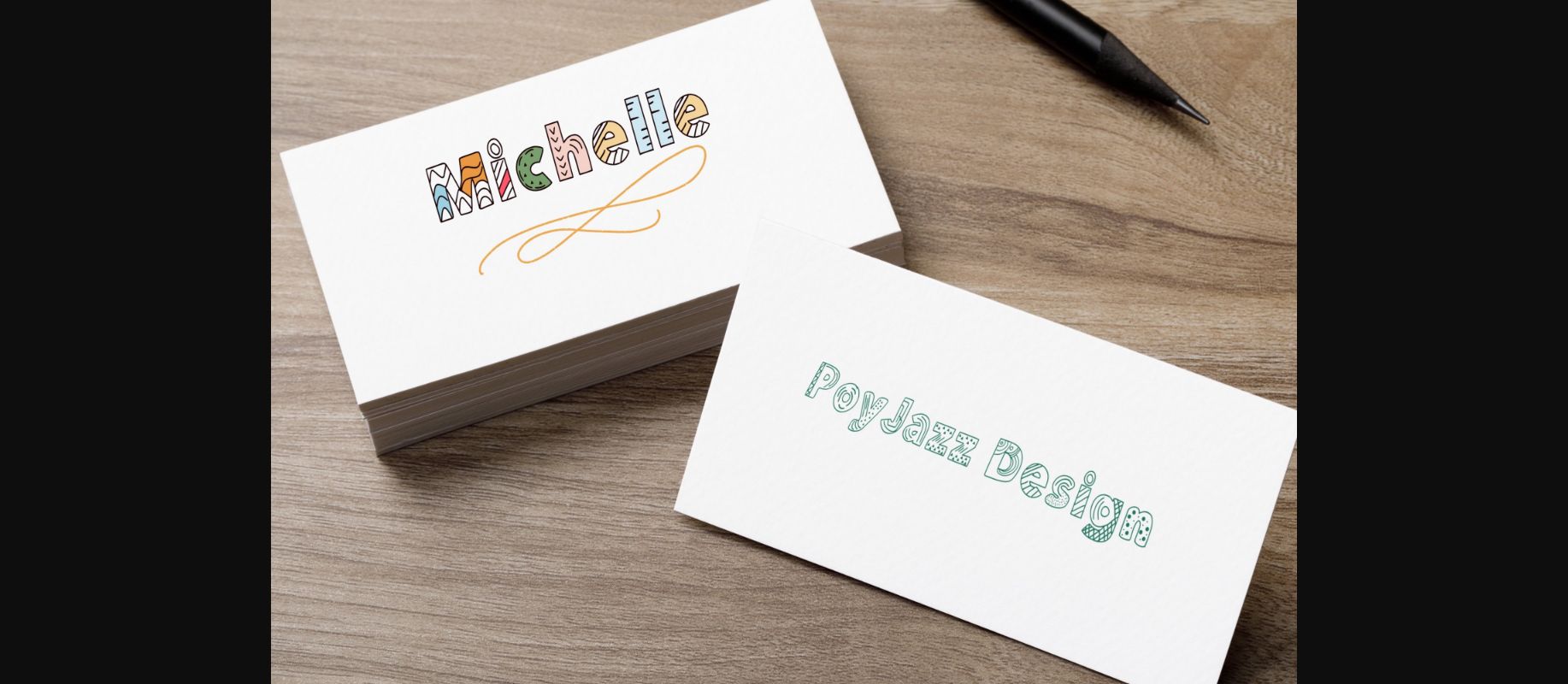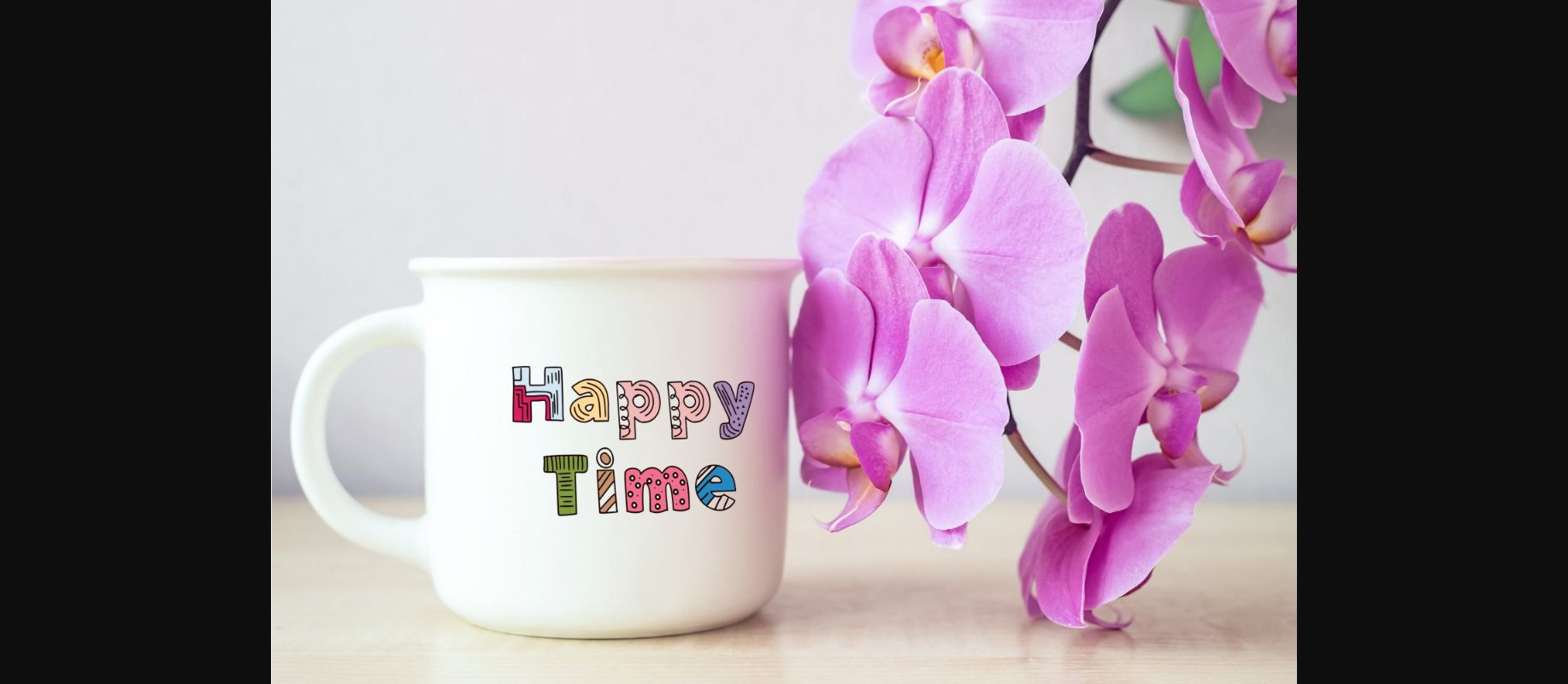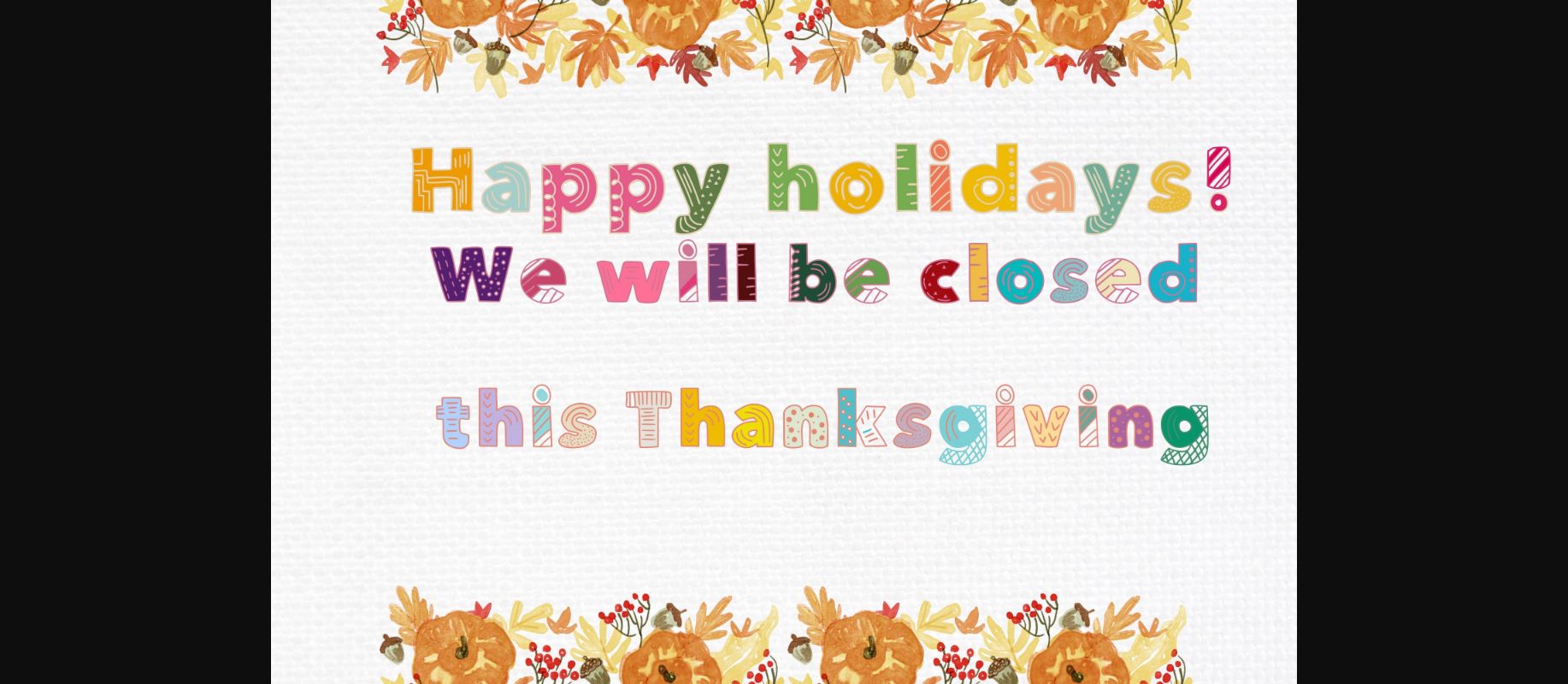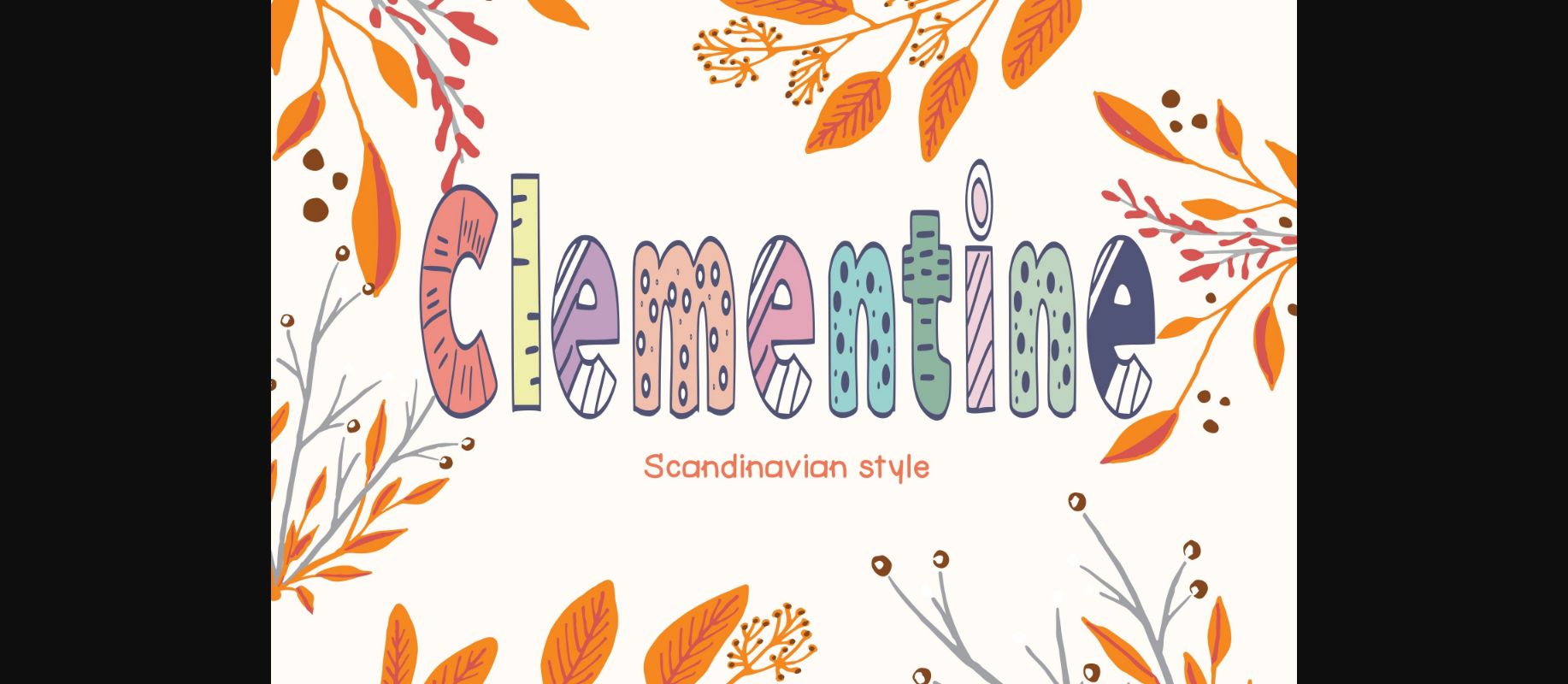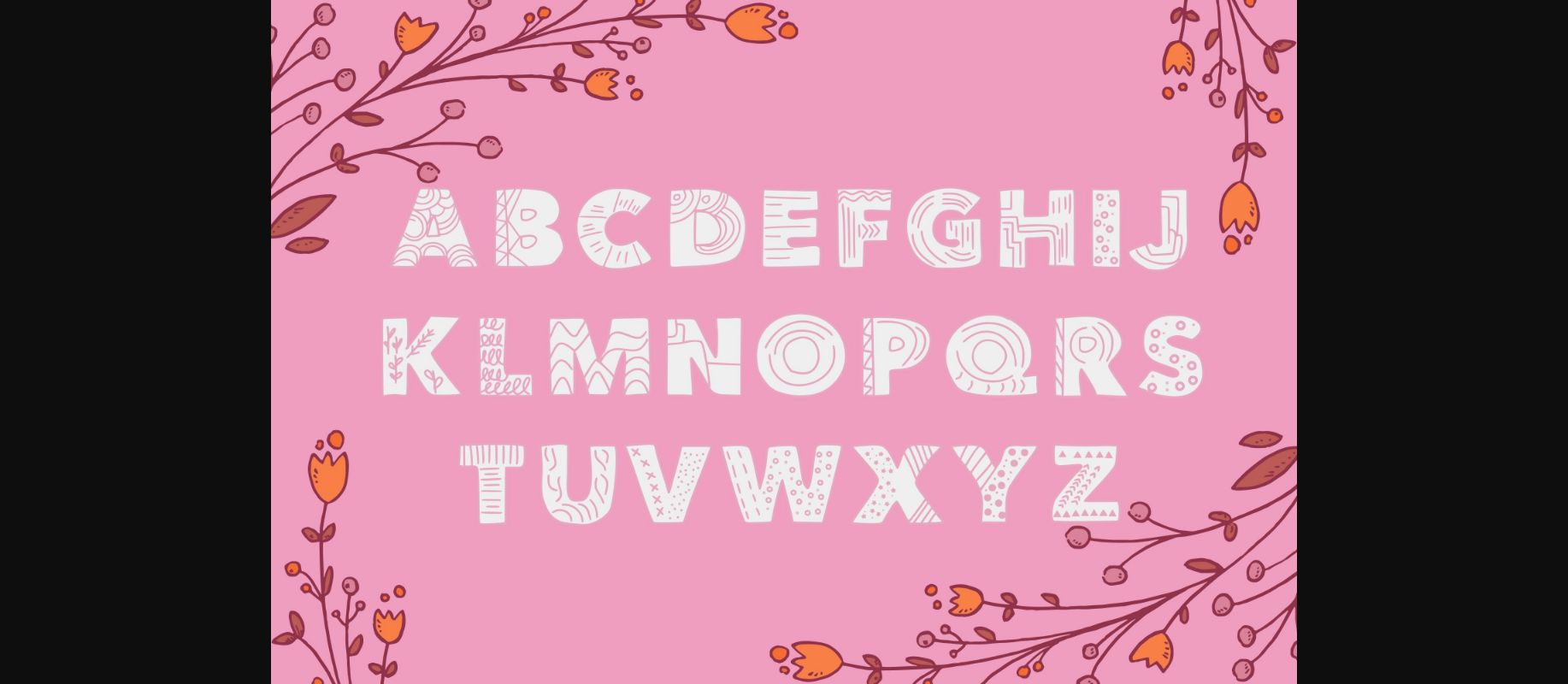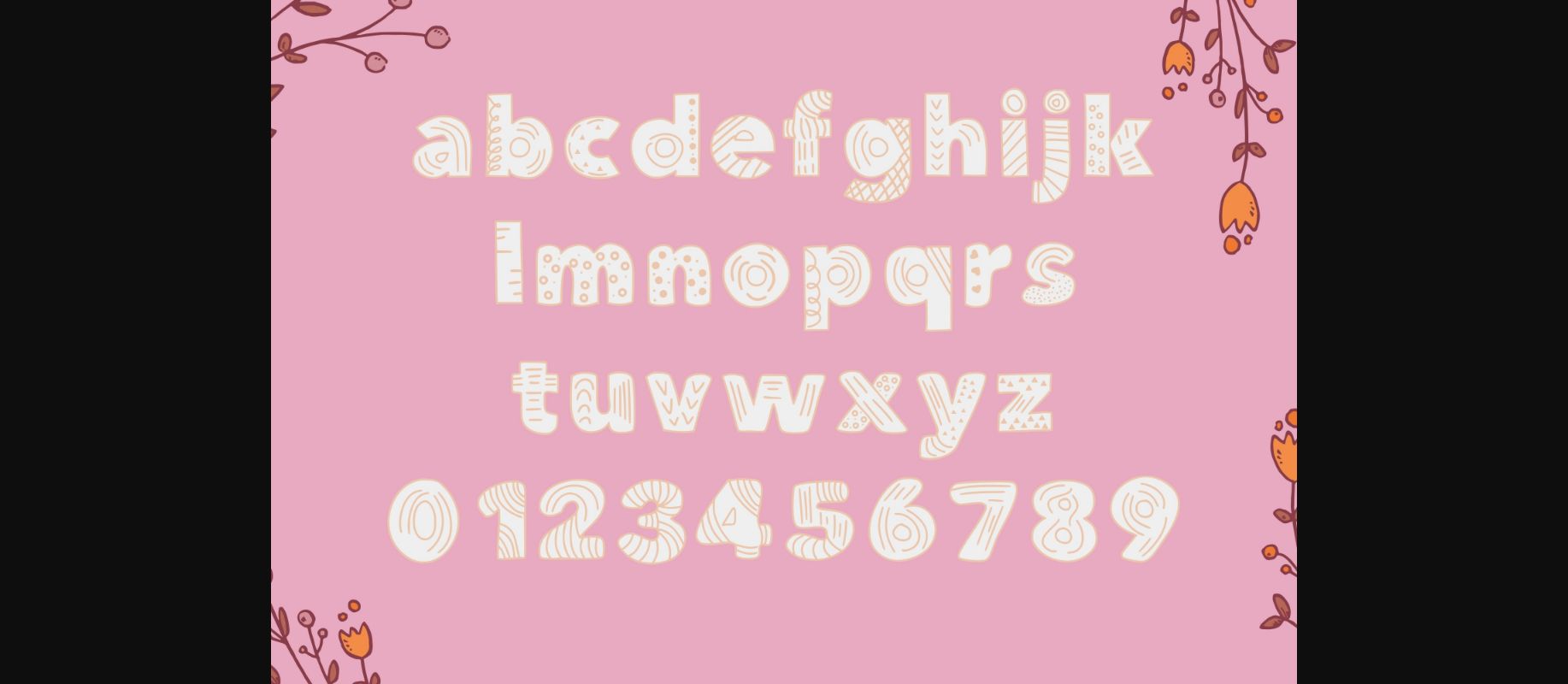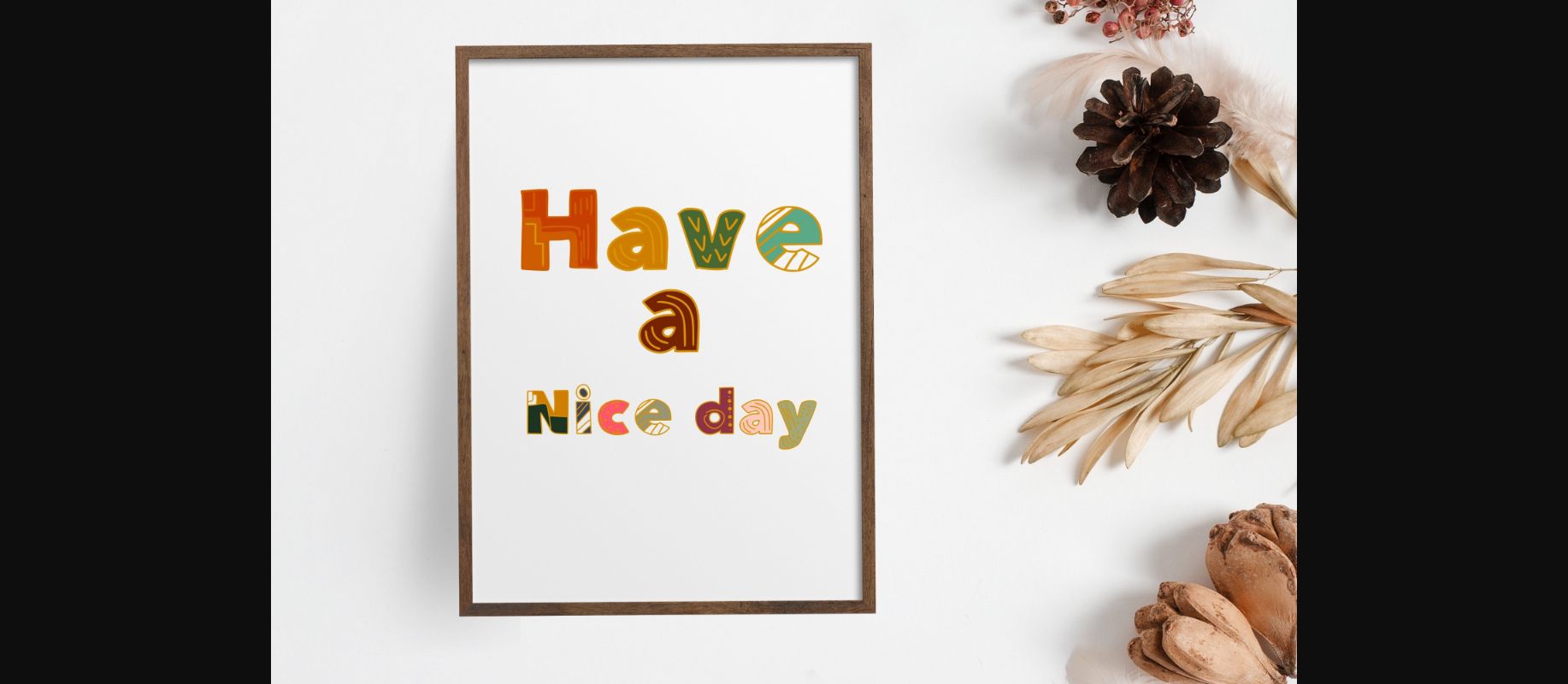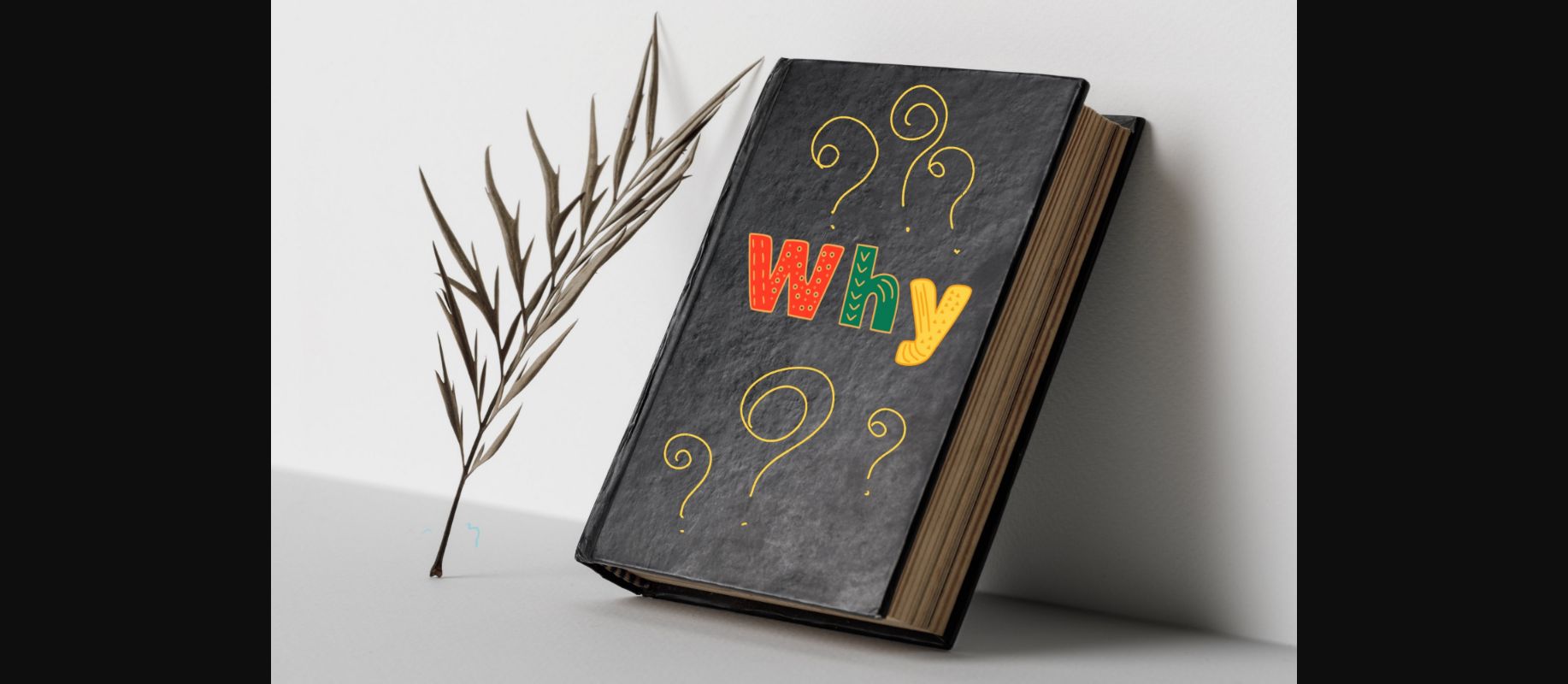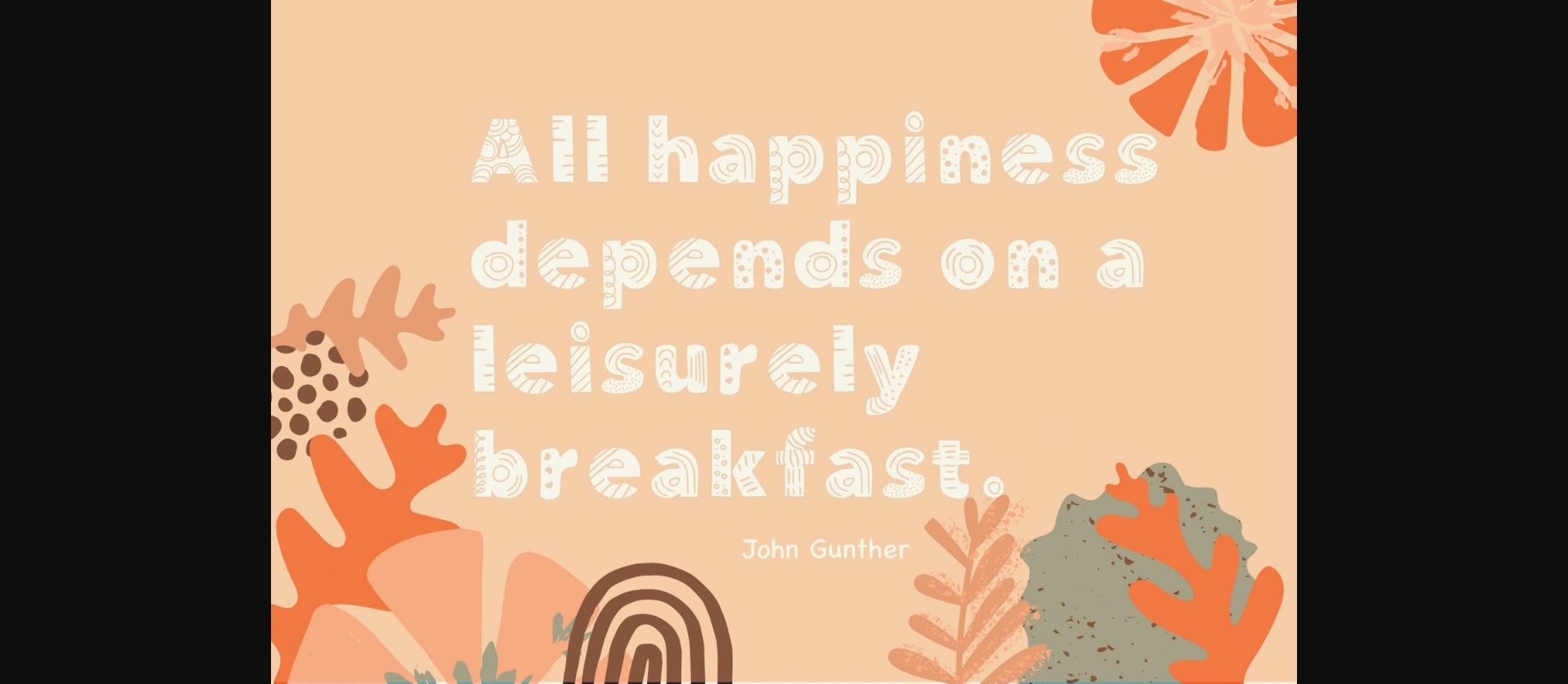
Clementine is a bold and thick lettered decorative font. It embodies playfulness and authenticity and is the perfect choice for any children activity or school project.